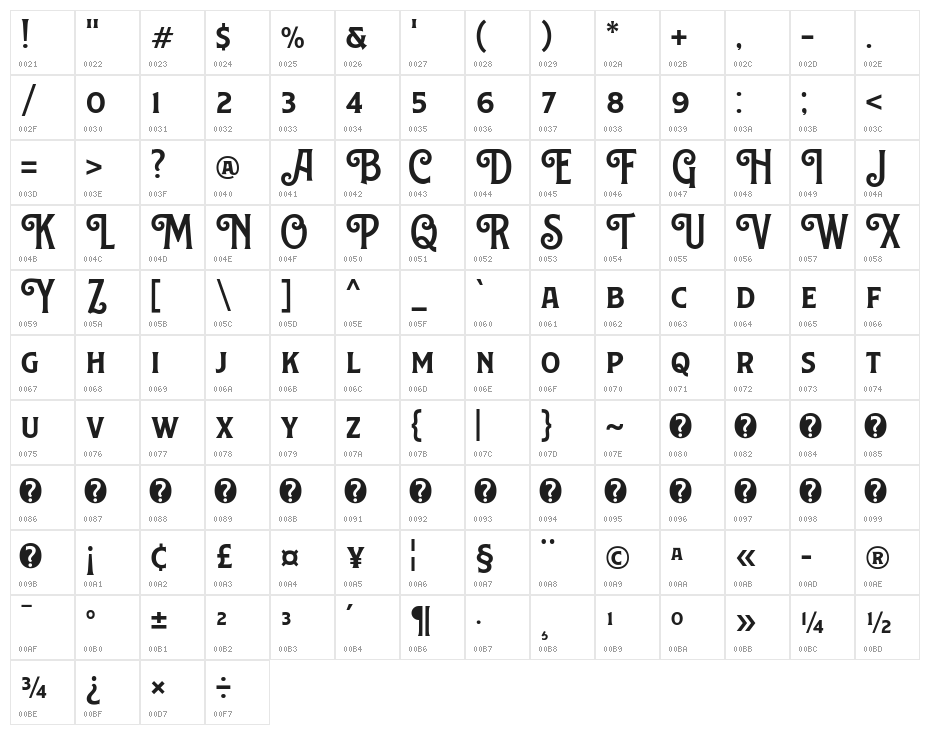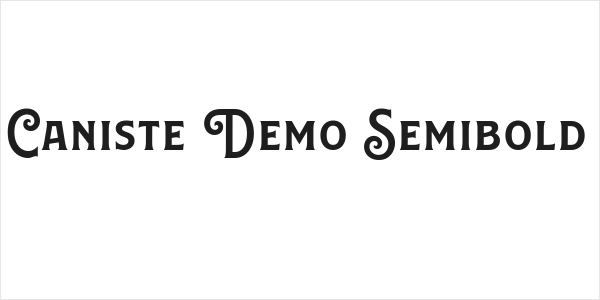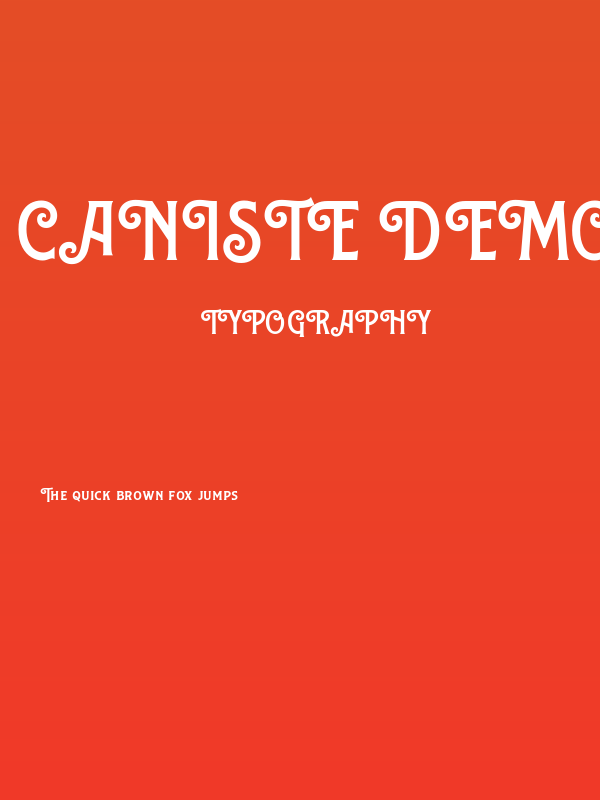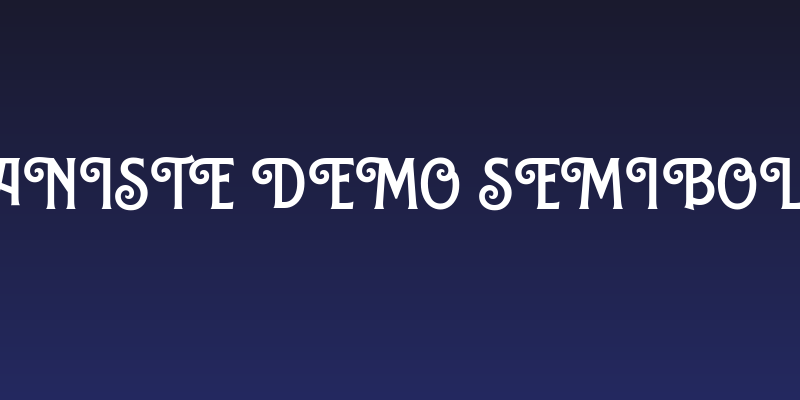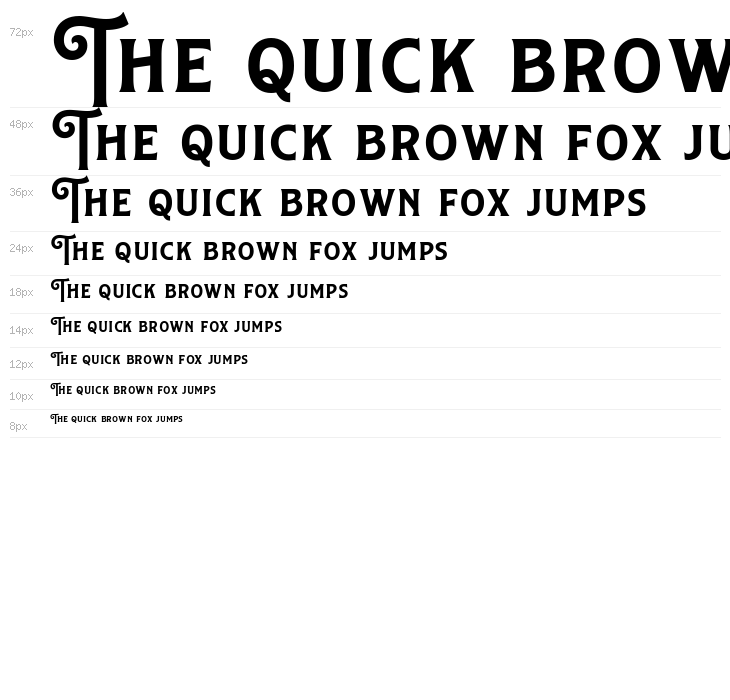
Caniste Demo Semibold Font
Caniste Demo Semibold Description
This font features a unique blend of decorative and bold characteristics, with uppercase letters showcasing intricate swirls and embellishments that add a touch of elegance and flair. The lowercase letters maintain a more straightforward, yet bold appearance, providing a nice contrast to the ornate uppercase. The numerals are clear and bold, ensuring readability while maintaining the overall aesthetic. Special characters are designed with the same attention to detail, making them stand out. This font is perfect for projects that require a touch of sophistication and creativity.
| Proposed Projects | Ideal for invitations, branding, logos, and creative projects that require a decorative touch. |